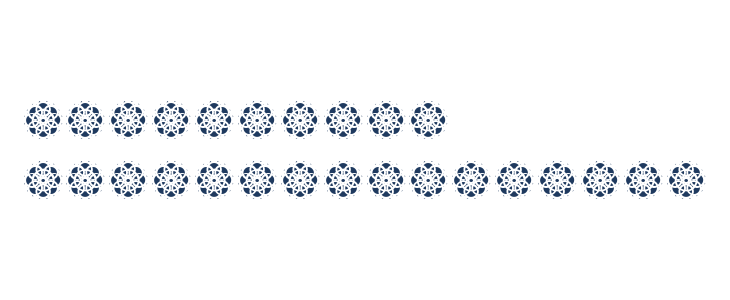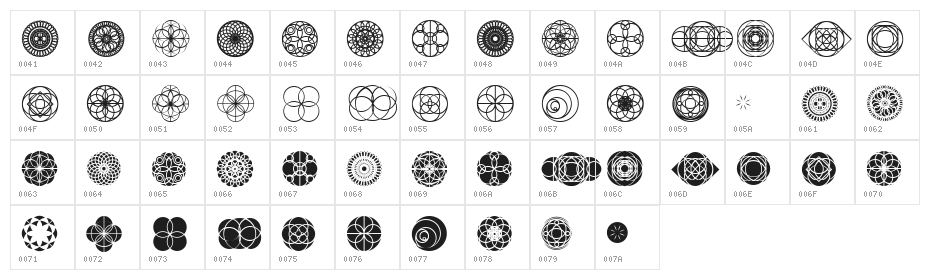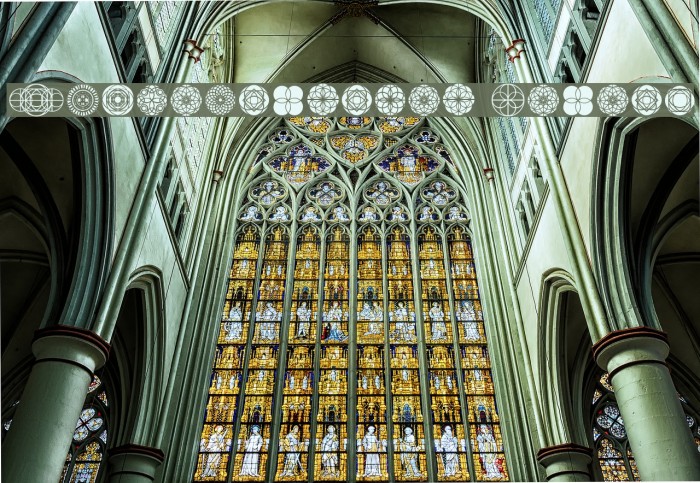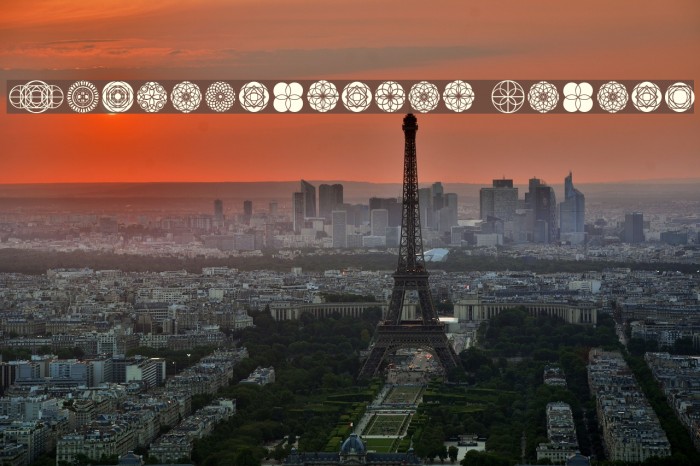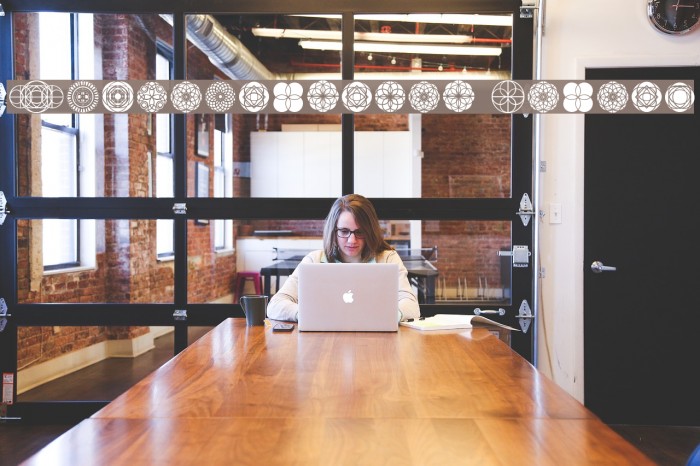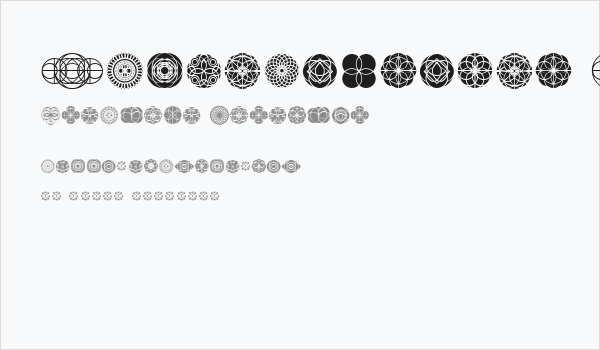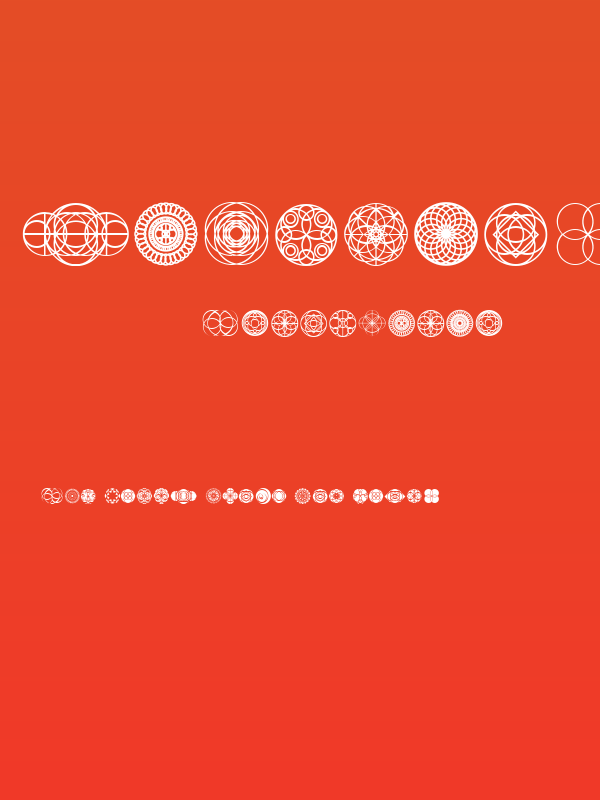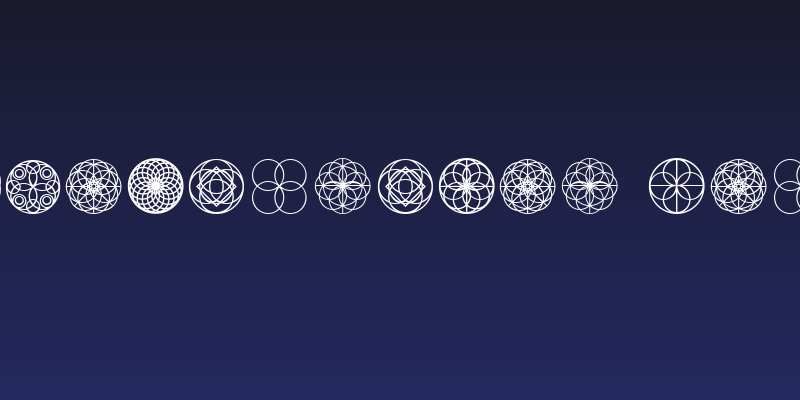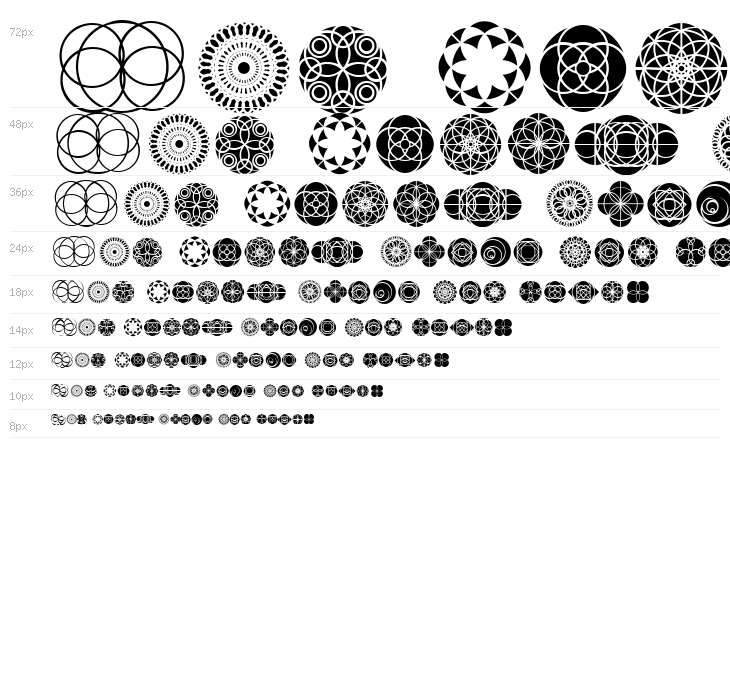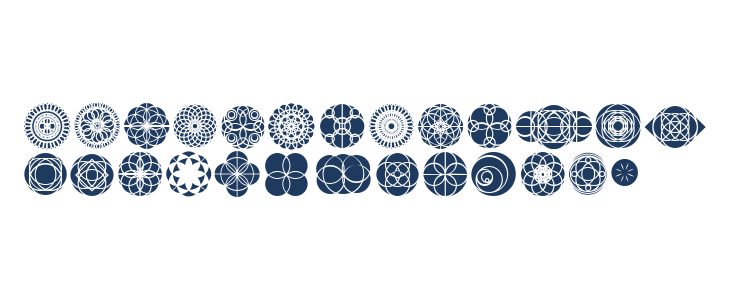
Kaleidoscopic Vision Font
Kaleidoscopic Vision Description
A decorative display set featuring intricate, symmetrical, kaleidoscopic geometric shapes with high visual complexity and strong contrast between black and white. Each glyph is a unique circular mandala-like pattern, emphasizing ornamental and abstract qualities rather than traditional letterforms.
| Overall Style | Decorative, Abstract, Modern |
| Use Case | Logos, Headlines, Decorative elements |
| Proposed Projects | Posters, album covers, branding, packaging, textile prints, digital art, event invitations, and ornamental dividers. |